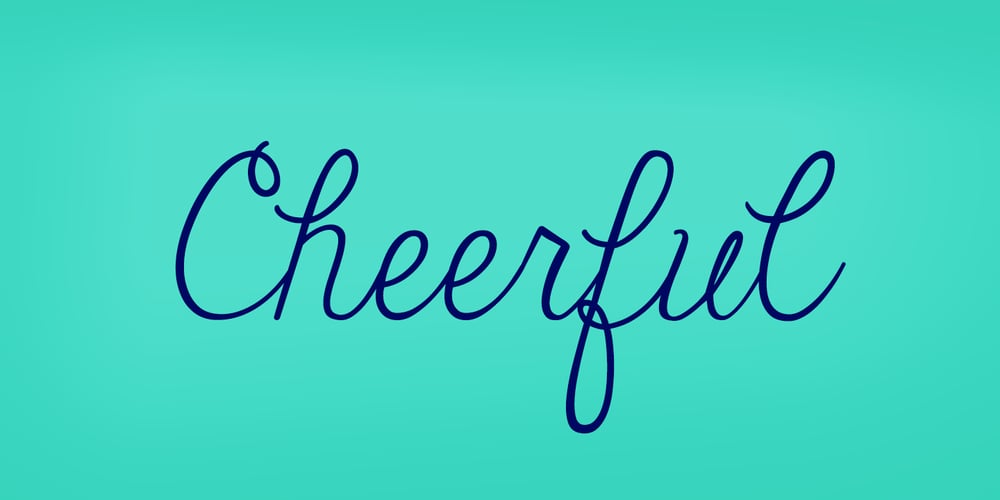
Janda Cheerful Script
Janda Cheerful Script font
Janda Cheerful Script Font Family was designed by Kimberly Geswein and published by Kimberly Geswein. Janda Cheerful Script contains 1 styles and family package options. Perfect for happy occasions, this font is optimistic, natural, and friendly. It connects nicely and is perfectly handwritten.